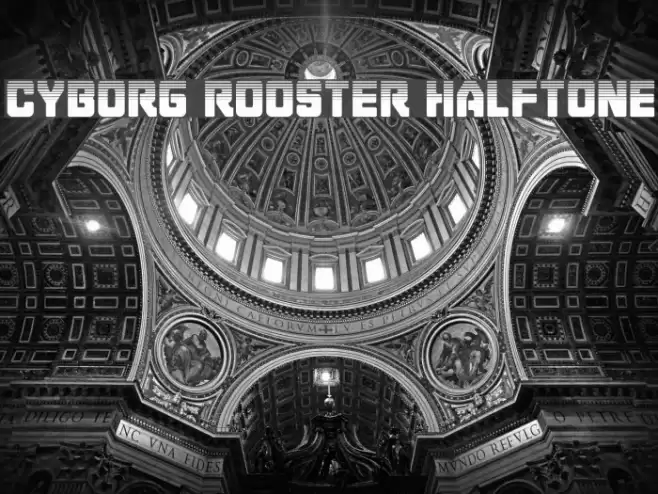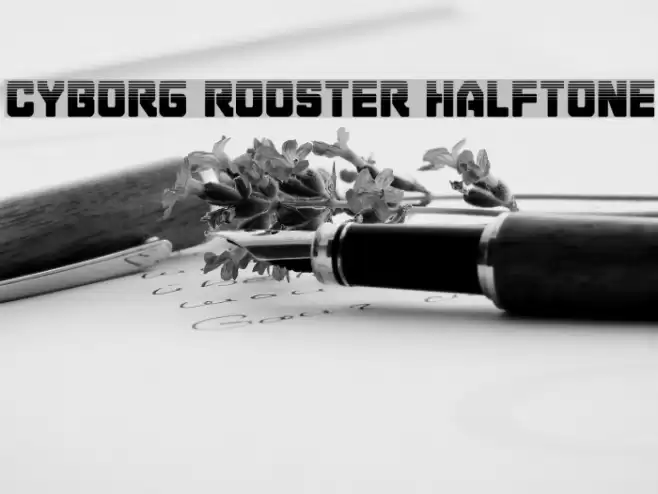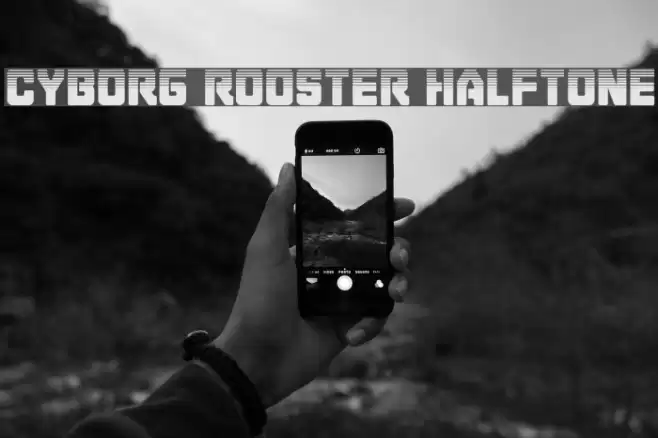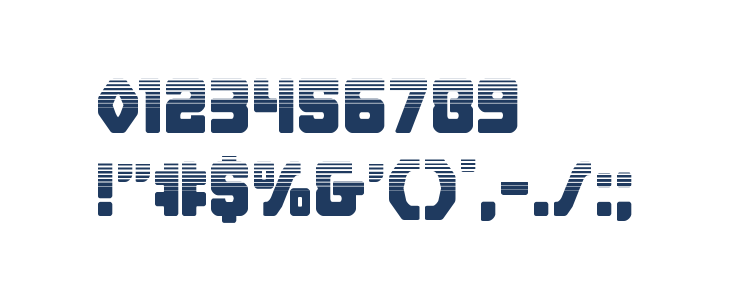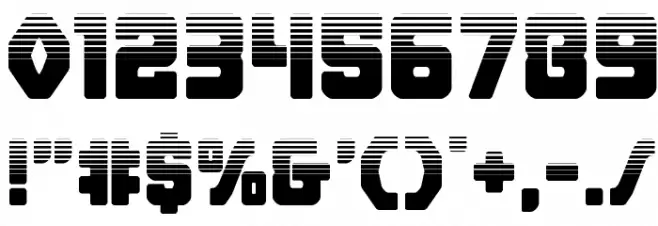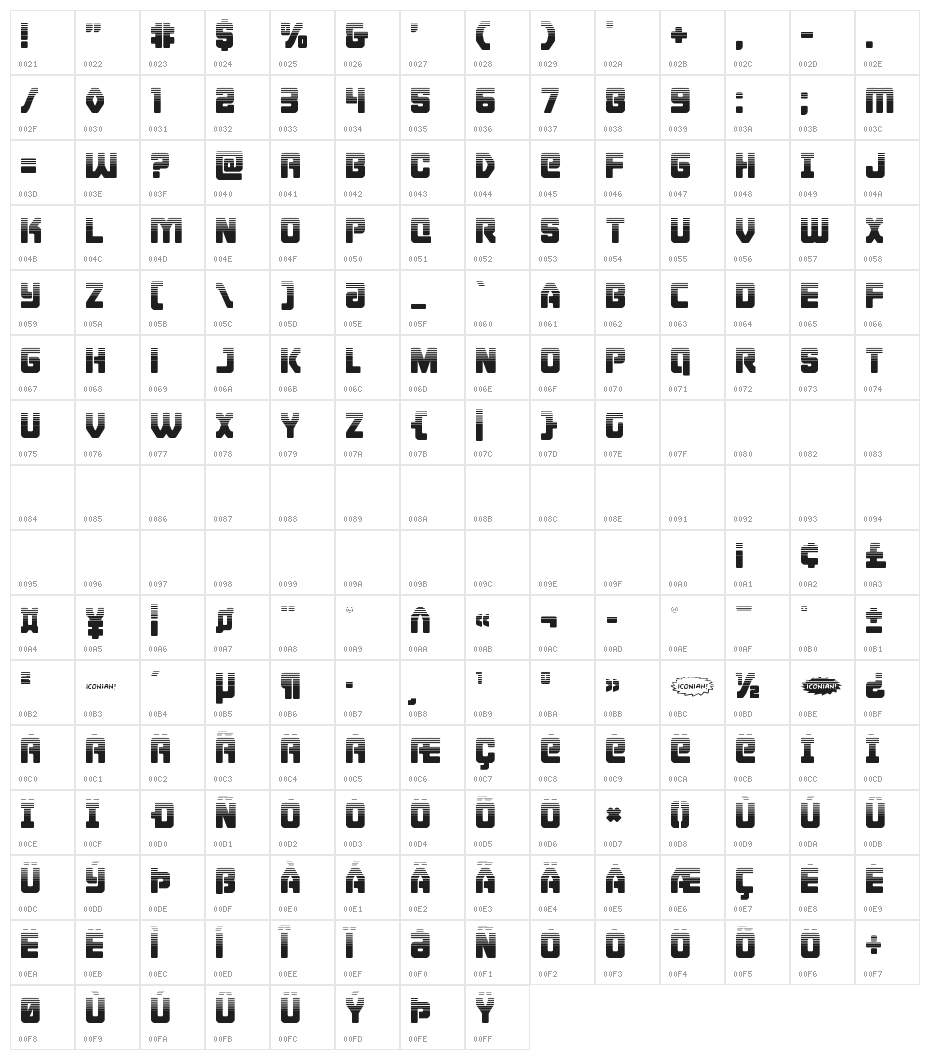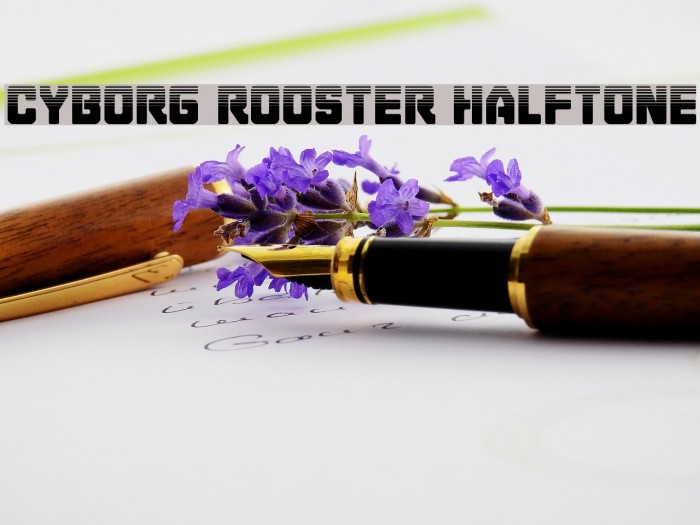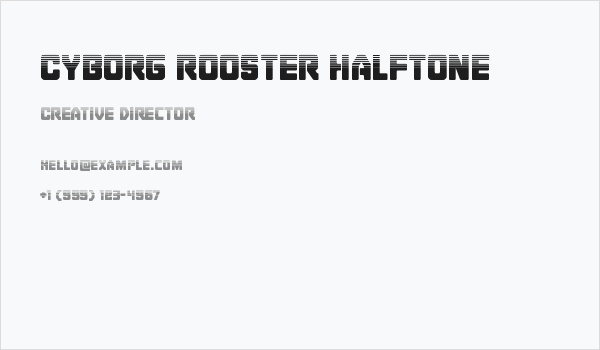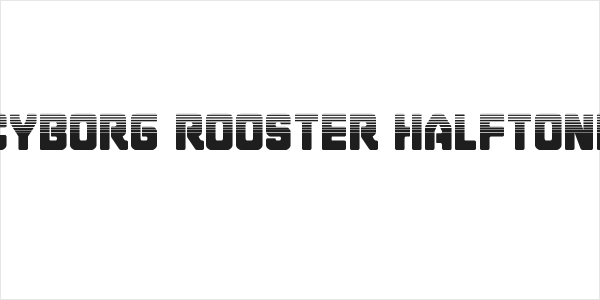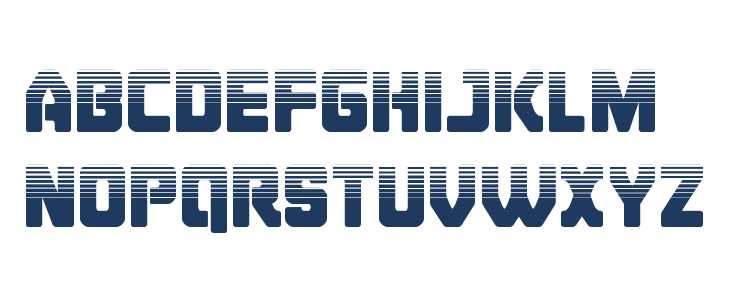
Cyborg Rooster Halftone Font
Cyborg Rooster Halftone Description
This font features a bold, futuristic design with a halftone effect that gives it a unique, digital appearance. The characters are blocky and geometric, with horizontal lines cutting through the top portion of each letter and number, creating a sense of movement and modernity. The uppercase and lowercase letters maintain a consistent style, emphasizing a strong, industrial feel. The numerals and special characters follow the same design principles, ensuring uniformity across the font. This font is ideal for projects that require a tech-savvy, contemporary look.
A bold, futuristic font with a halftone effect and geometric design from Sci-fi fonts.
- Proposed Projects: Ideal for technology branding, sci-fi themed projects, video game titles, and digital art.